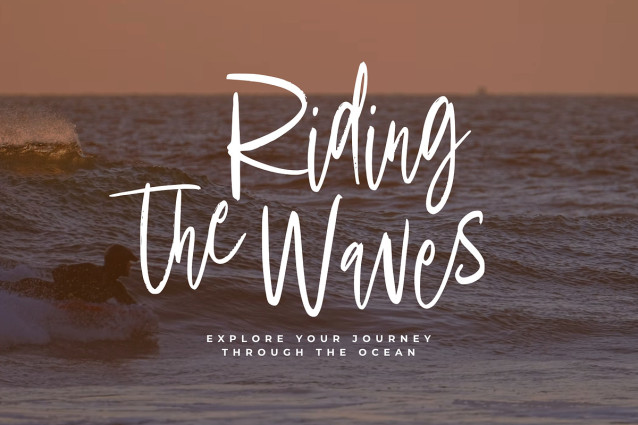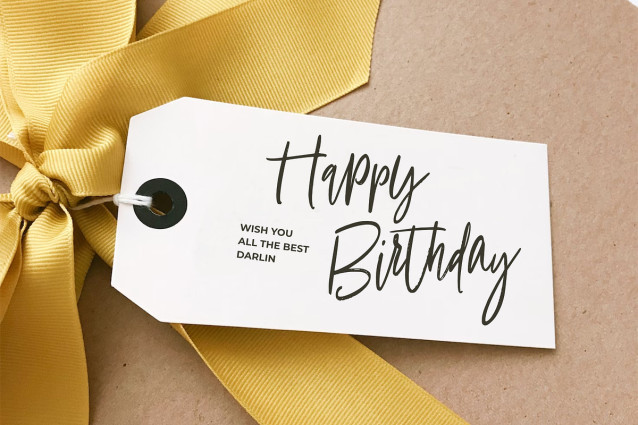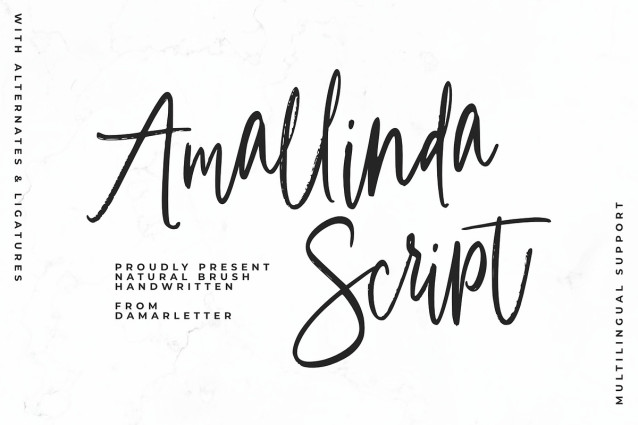
Amallinda Script Font
Amallinda Script Font a seamless and natural flow, creating a handwritten feel that adds a personal touch to your work. The font’s versatility shines in various contexts, from fashion and beauty to lifestyle and beyond.
Embrace the enchanting allure of Amallinda script font and elevate your designs with a harmonious blend of classic and contemporary. This font invites you to infuse your projects with sophistication and artistic expression, creating a lasting impression that resonates with style and grace.